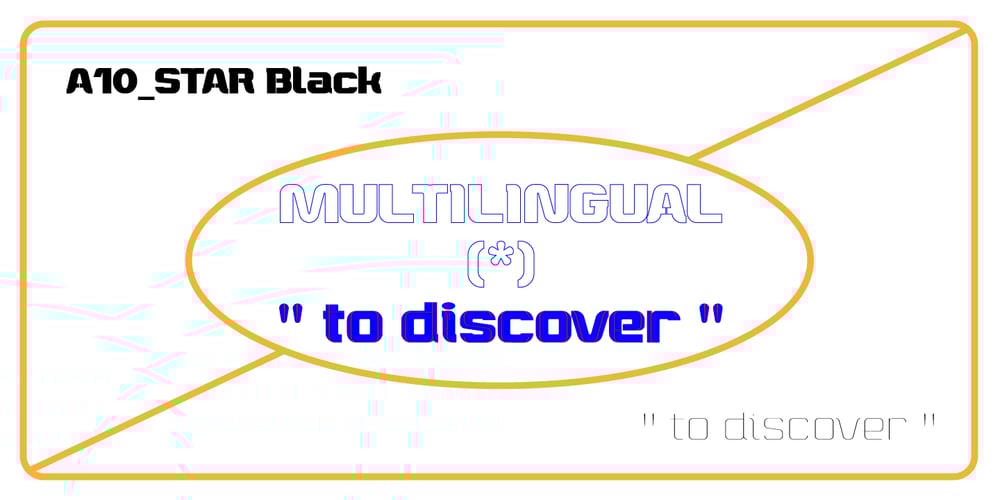
A10 STAR Black Font Family was designed by Nasri Abdallah and published by Mogtahid. A10 STAR Black contains 2 styles and family package options. As a former typographer / lino and calligrapher, Abdallah NASRI had recourse to the nature of the idea of an “INTERCHANGEABLE” collection for types who in reality offer a police collar parallel to the complex typeface of the variable.Our fashion is outlined by a simple calculation defined by superimposed geometric circles where we used only its ¼ to fill the need for the angles of each of our letters.Always with the idea of having in the same allocated space, the same letter nested as many times as fat example from Hairline to Ultrabold.It was in this way that I was able to obtain a large number of styles, with a very interesting kerning which prompted me to extend the font to other languages with +1000 characters and +600 glyphs.I have always been treasured by the all in “1”. I assure you that I sought to obtain the maximum of Visibility for a use S / Titling TV, WEB Pages and Typography Typo; once the difficult thing was done, I was rewarded by a font that has countless typographic openings for the world of graphics with 10 styles of weights in hand, and again I am happy to have personalized the charm of each letter by new details; I do not regret the time spent on thinking about it so that it is useful and at the same time pleasant as a working tool, finally profitable in all sectors and more multilingual, without forgetting that it is a family of inter change c ‘ is to say: All the types occupy the same height of the body and it is their fats which differs in the same space width of each of the letters, therefore no interference in spacing.Here, an additional alternative, a participation of a septuagenarian in the service of the love of modern digital typography.• TEST: At 50% screen in a body of 12 pixels, the A10 STAR Alphabet subjected to a test, has a clear Readability / Visibility.• P.S: A10 STAR integrates Diacriticism in all its forms.Texte d’origine : Abdallah NASRI a eu recours en étant ancien typographe/lino et calligraphe à la nature de l’idée d’une collection “INTERCHANGEABLE” pour les types qui en réalité offre un collier de police parallèle à la fonte complexe du variable. Notre mode est esquissé par un calcul simple défini par des ronds géométrique superposés où on a utilisé seulement son ¼ pour garnir le besoin des angles de chacune de nos lettres.Toujours dans l’idée à avoir dans le même espacement alloué, la même lettre imbriquée autant de fois de graisse exemple du Hairline à Ultrabold.C’est de cette manière que j’ai pu obtenir un grand nombre de styles, avec un crénage très intéressant ce qui m’a incité à étendre la police à d’autres langues avec +1000 caractères et +600 glyphes.J’ai toujours été prisé par le tout en « 1 ». Je vous assure que j’ai cherché à obtenir le maximum de Visibilité pour une utilisation S/Titrage TV, Pages WEB et Maquette typo ; une fois le difficile fait, j’ai été récompensé par une police qui possède d’innombrable ouverture typographique pour le monde du Graphisme avec comme atout en main 10 styles de graisses, et encore je suis content pour avoir personnalisé le charme de chaque lettre par des détails nouveaux ; je ne regrette pas le temps passé dessus à réfléchir pour qu’il soit utile et à la fois agréable comme outil de travail, enfin profitable tous secteurs confondus et en plus multilingue, sans oublié que c’est une famille d’inter change c’est-à-dire : Tous les types occupent la même hauteur du corps et c’est leurs graisses qui diffère dans un même espace largeur de chacune des lettres, donc aucune interférence dans l’espacement.Voilà, une alternative supplémentaire, une participation d’un septuagénaire au service de l’amour de la typographie numérique moderne.• TEST : A 50% d’écran dans un corps de 12 pixels, l’Alphabet A10 STAR soumise a un test, présente une nette Lisibilité / Visibilité.• P.S : A10 STAR intégre la Diacritique dans toutes ses formes.